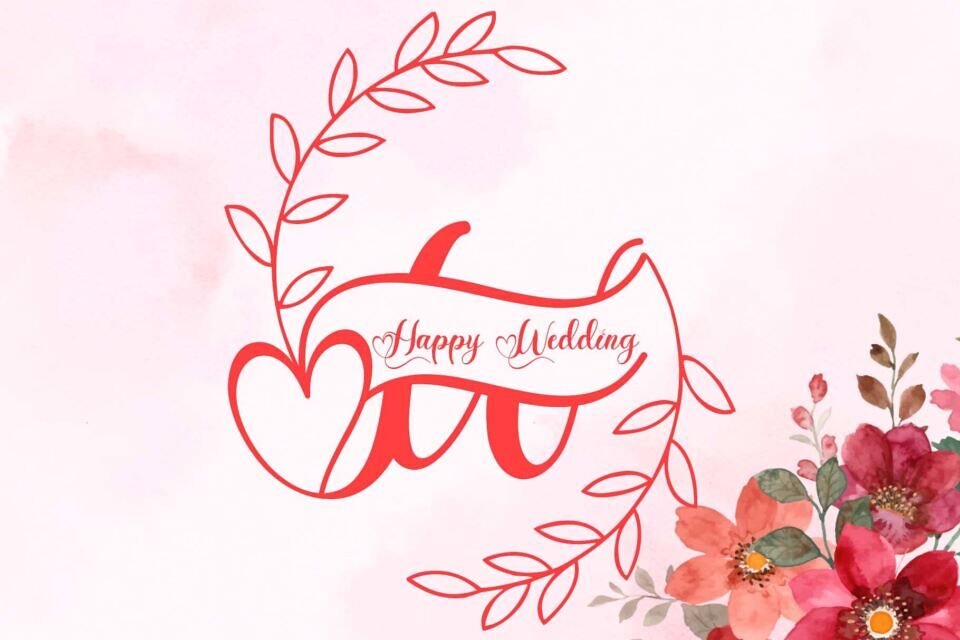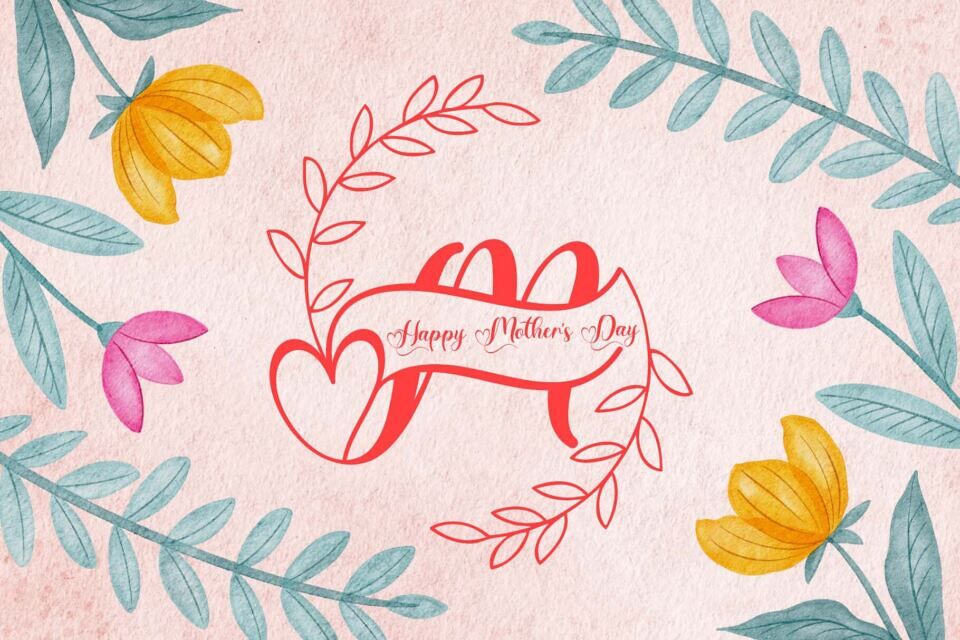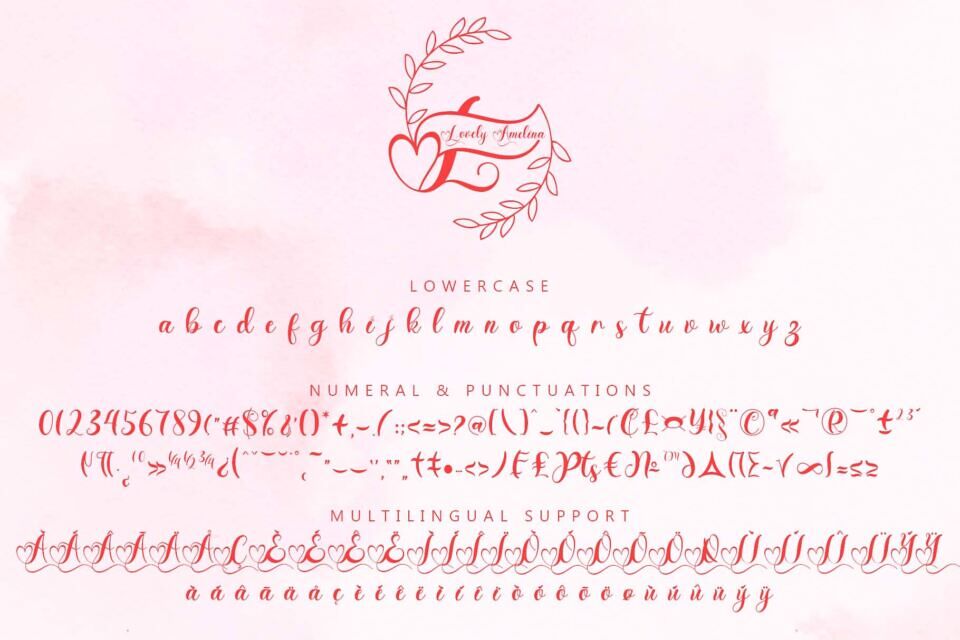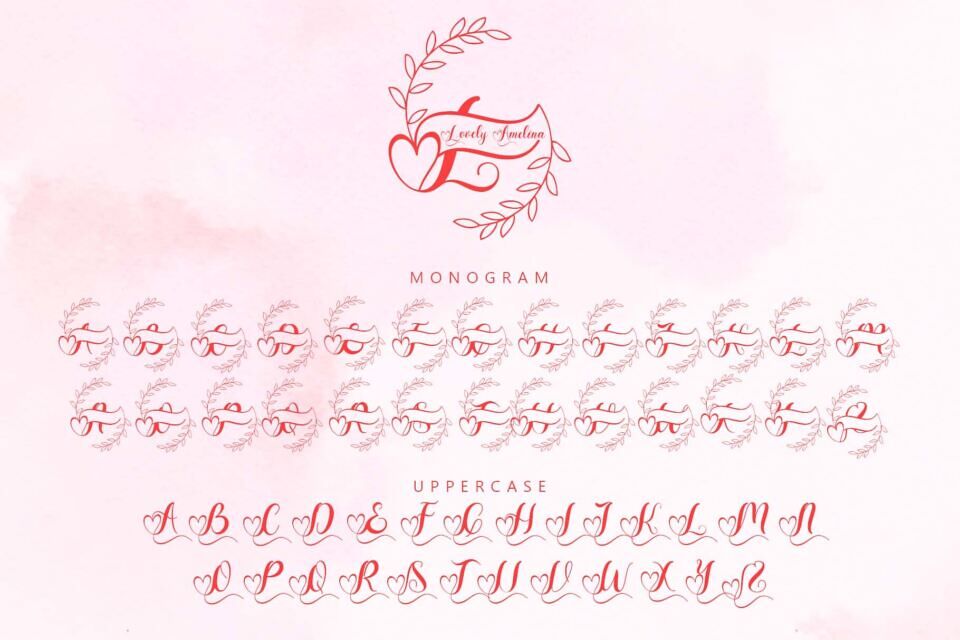
Lovely Amelina is a romantic and elegant monogram font with graceful curves and heart-inspired flourishes.
Perfect for wedding invitations, stationery, branding, and romantic crafts, this font combines soft femininity with refined decorative style. It’s made to personalize with flair and flourish—ideal for initials, logos, and loving messages.